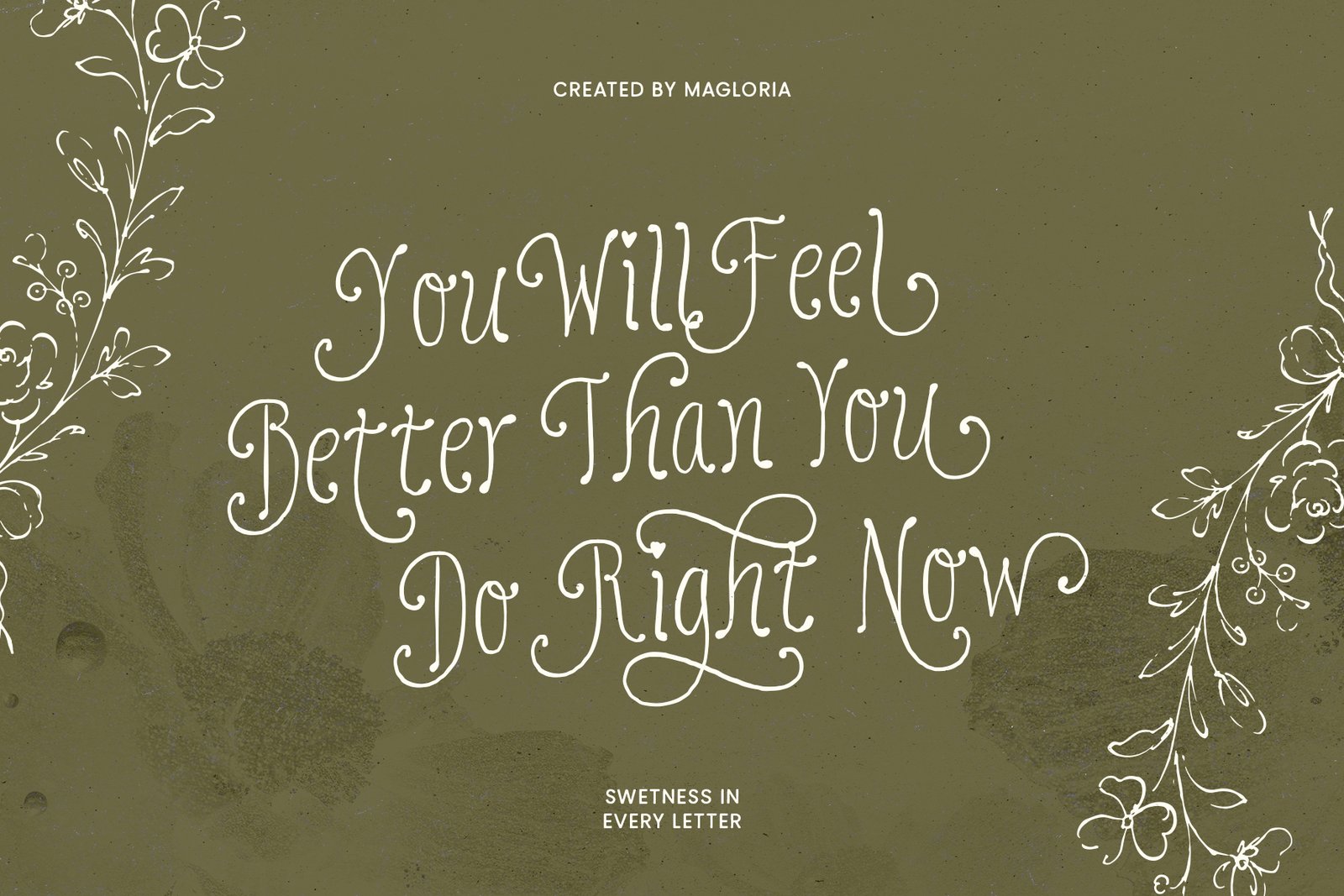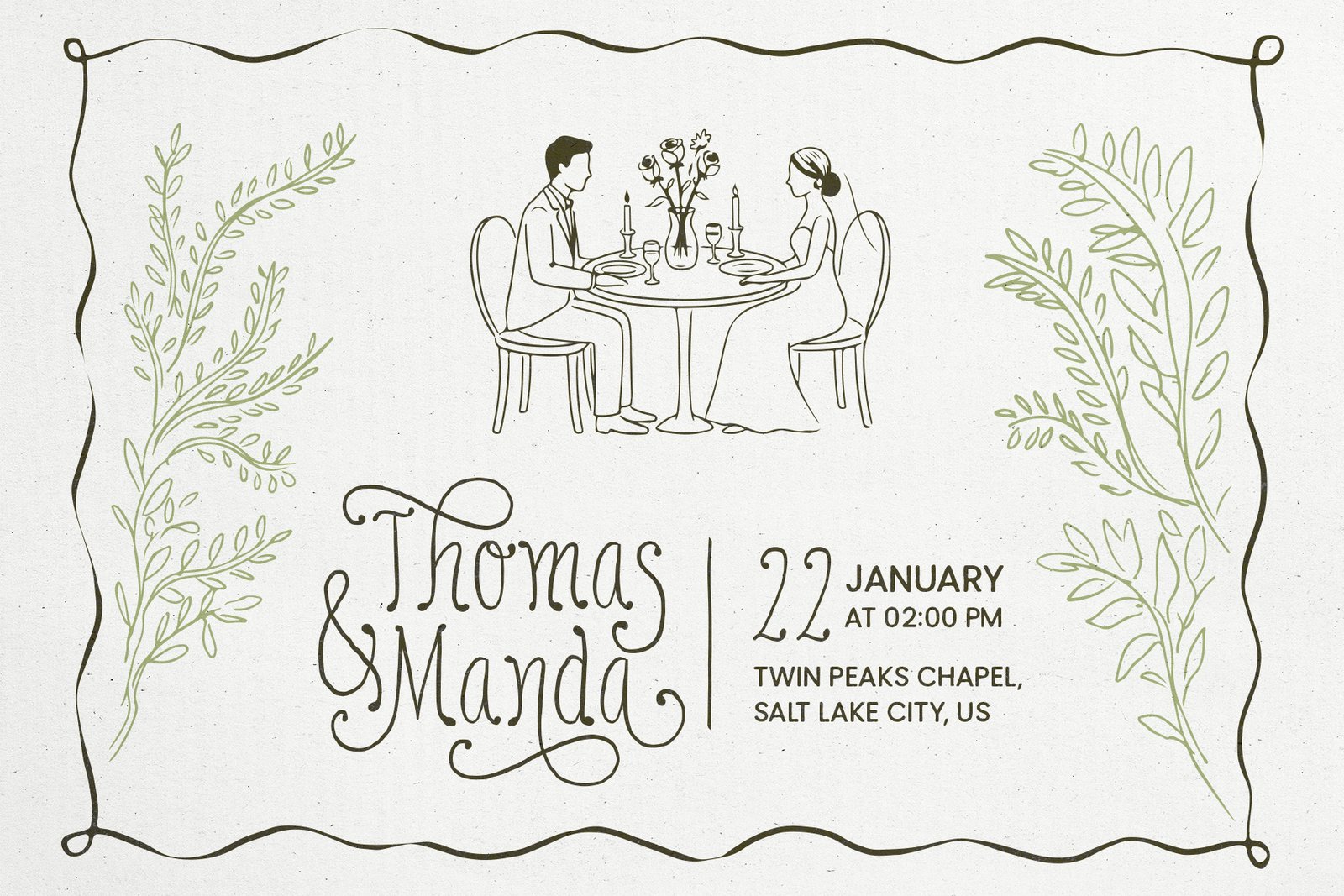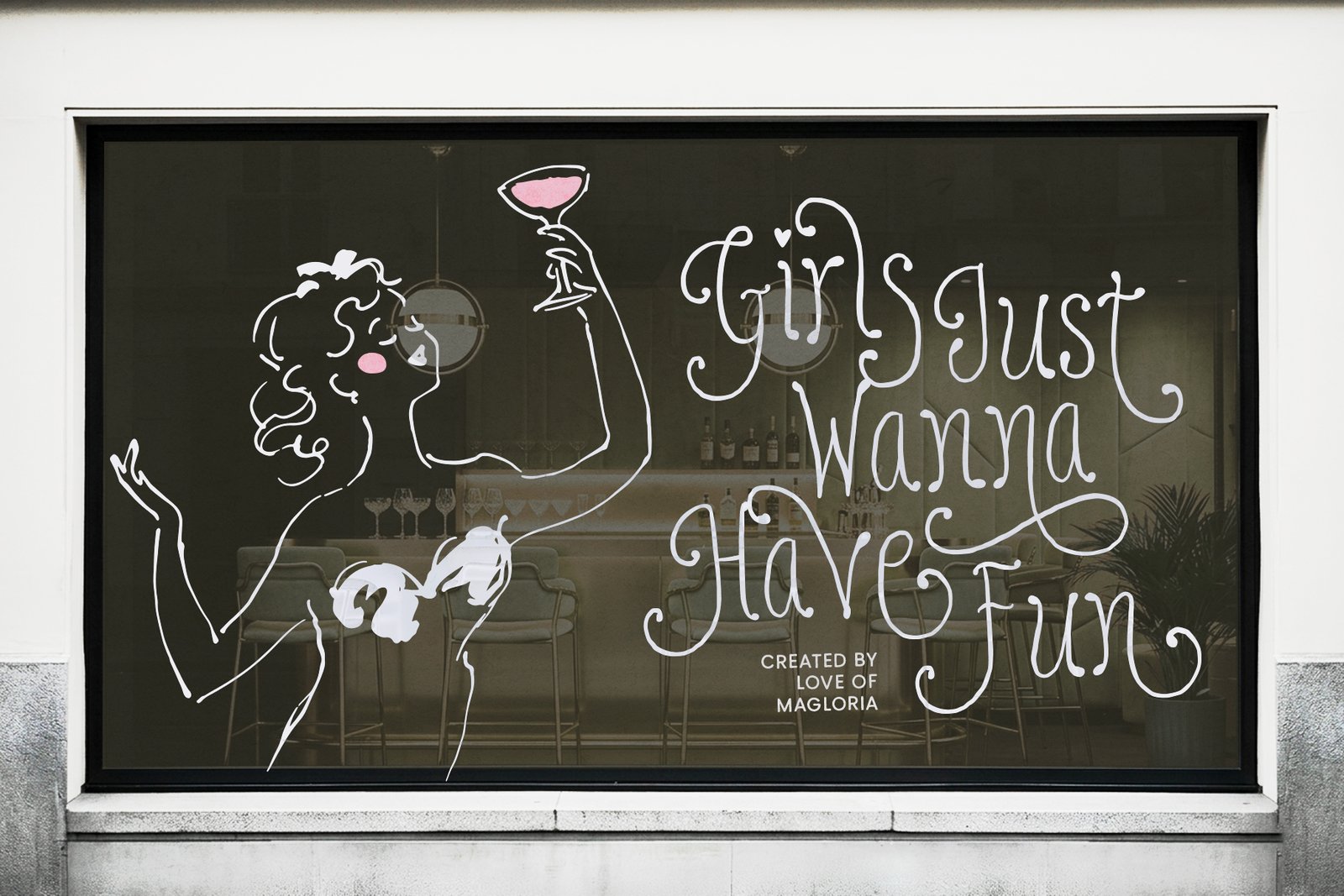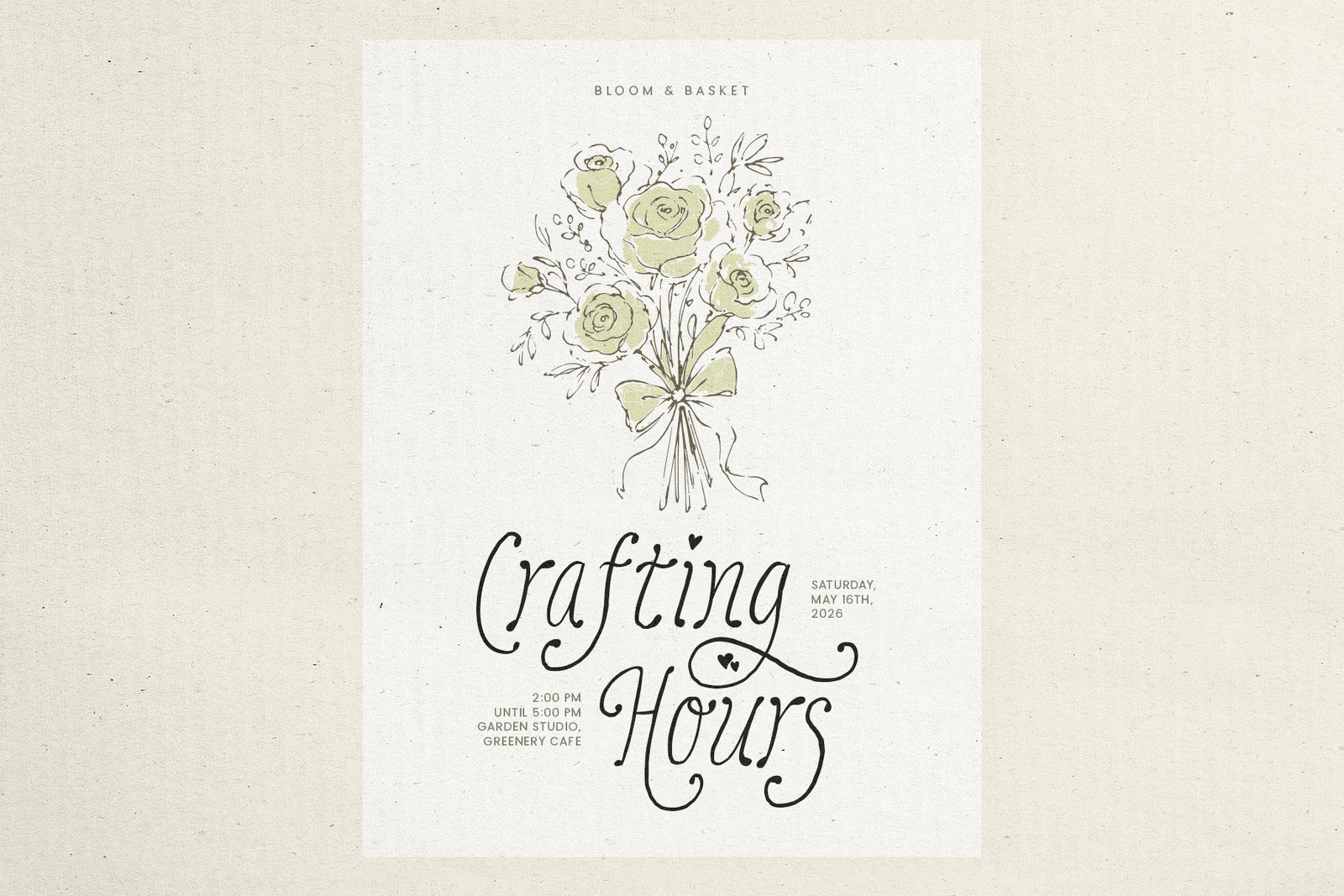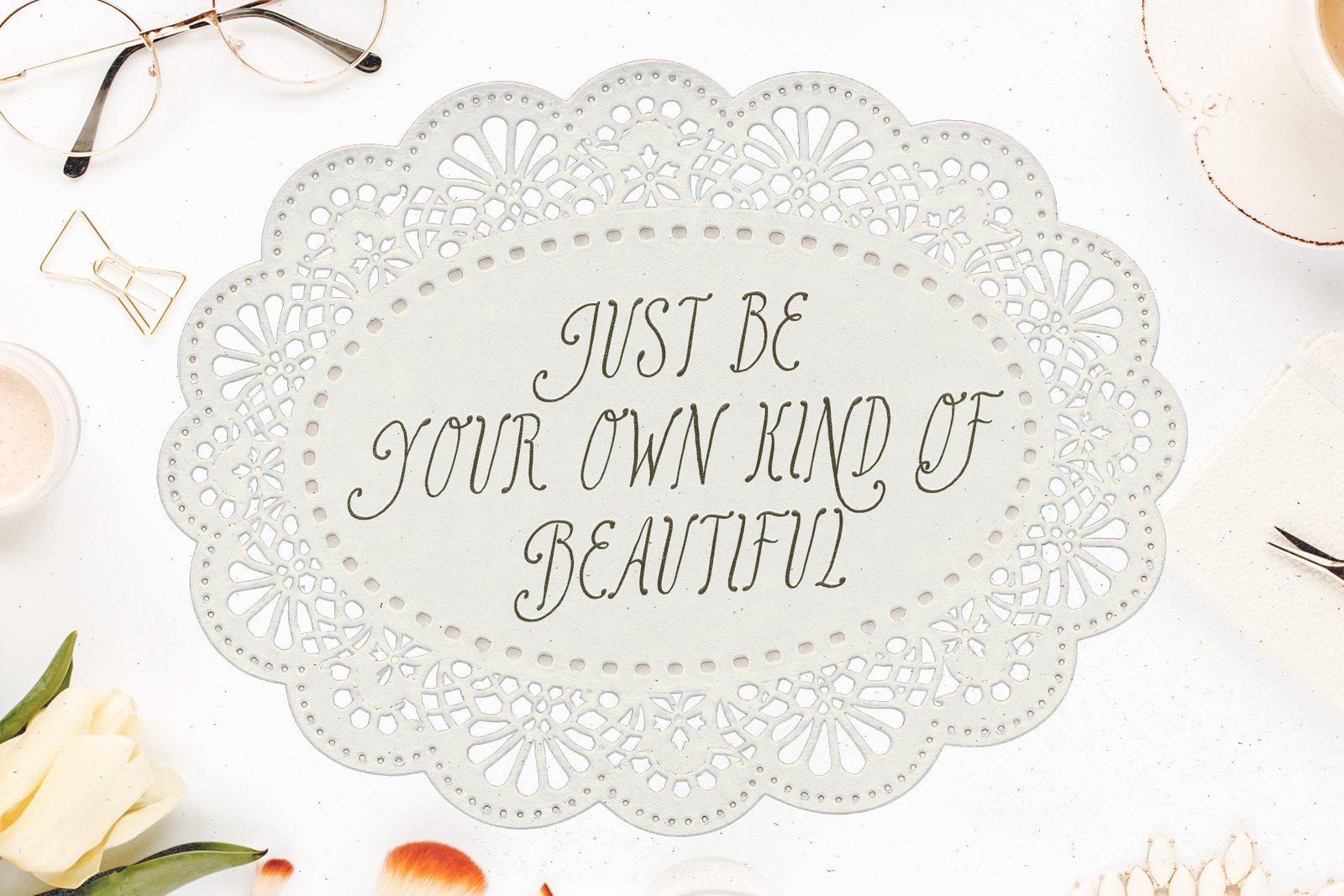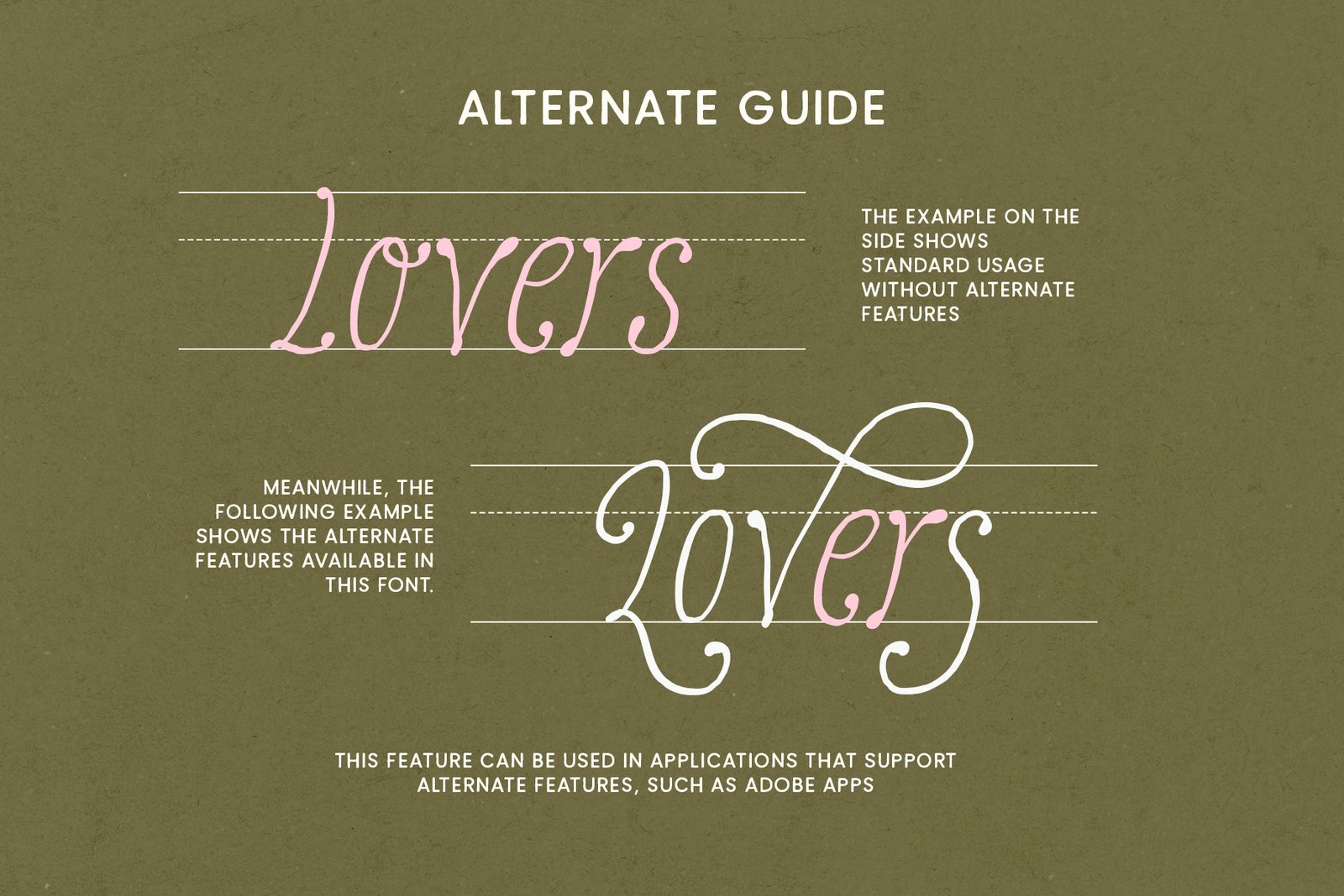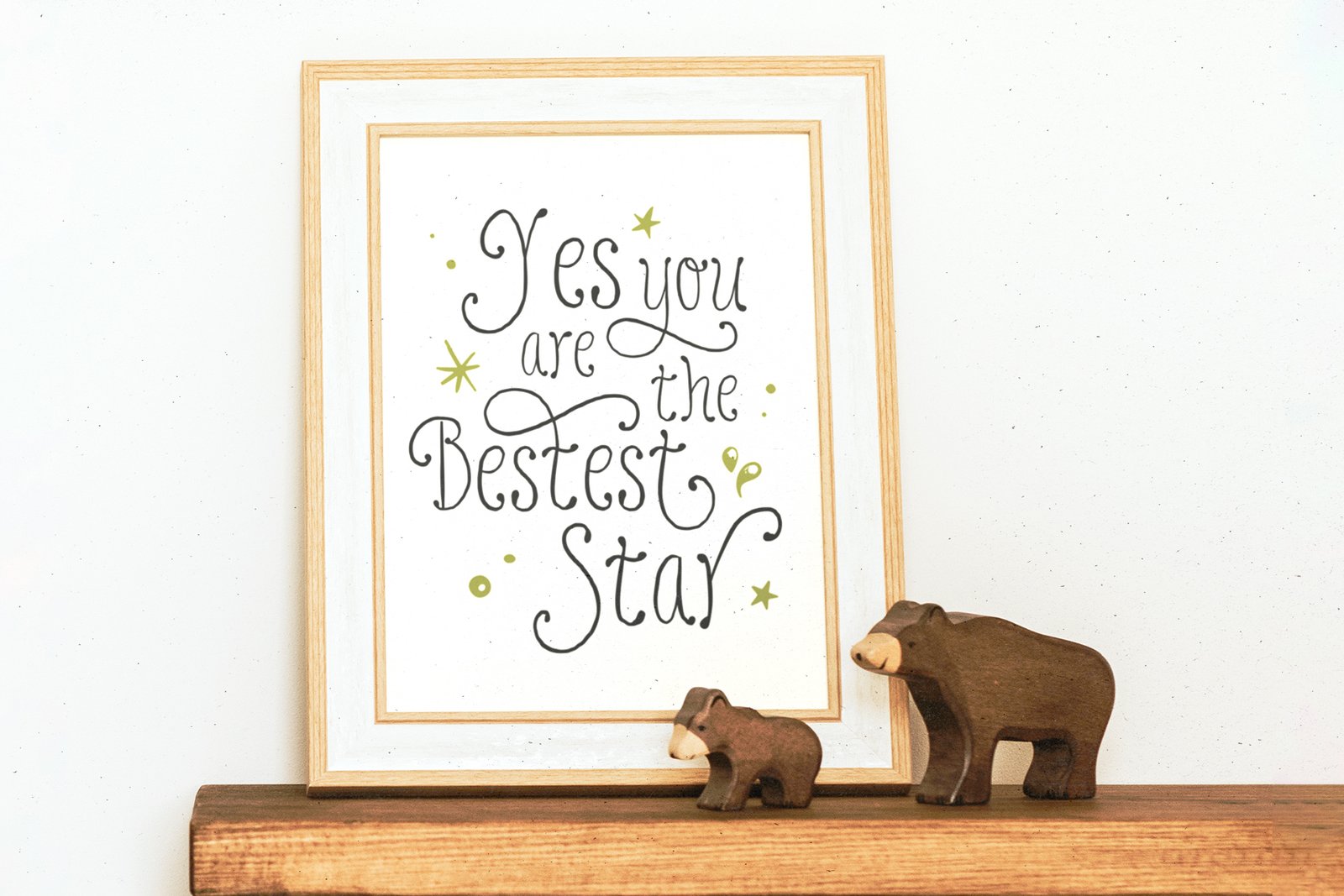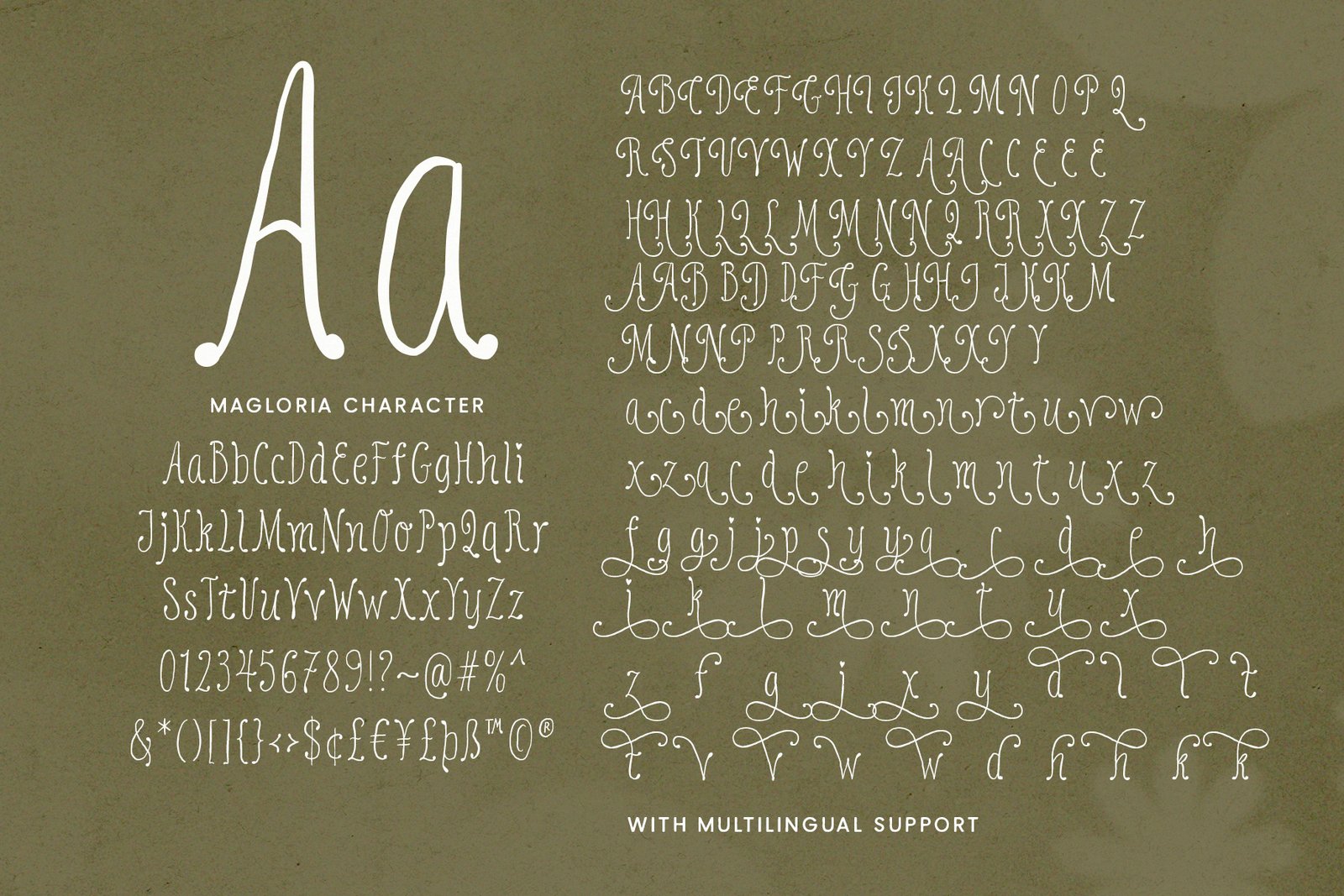
Magloria – Swirly Handwritten Font
Magloria is a sweet handwritten font with beautiful swirls and a feminine, playful character.
Magloria is a sweet handwritten font with beautiful swirls and a feminine, playful character. Its graceful letterforms bring a cute and romantic touch to any design, making it perfect for branding, logotypes, quotes, wedding invitations, stationery, packaging, and more. Featuring beautiful swirly alternates, Magloria gives you the freedom to create unique and eye-catching typography that stands out. With its delicate yet expressive style, this font is perfect for adding a personal and whimsical touch to your creative projects. This fonts also includes multilingual support, making it suitable for designs around the world.